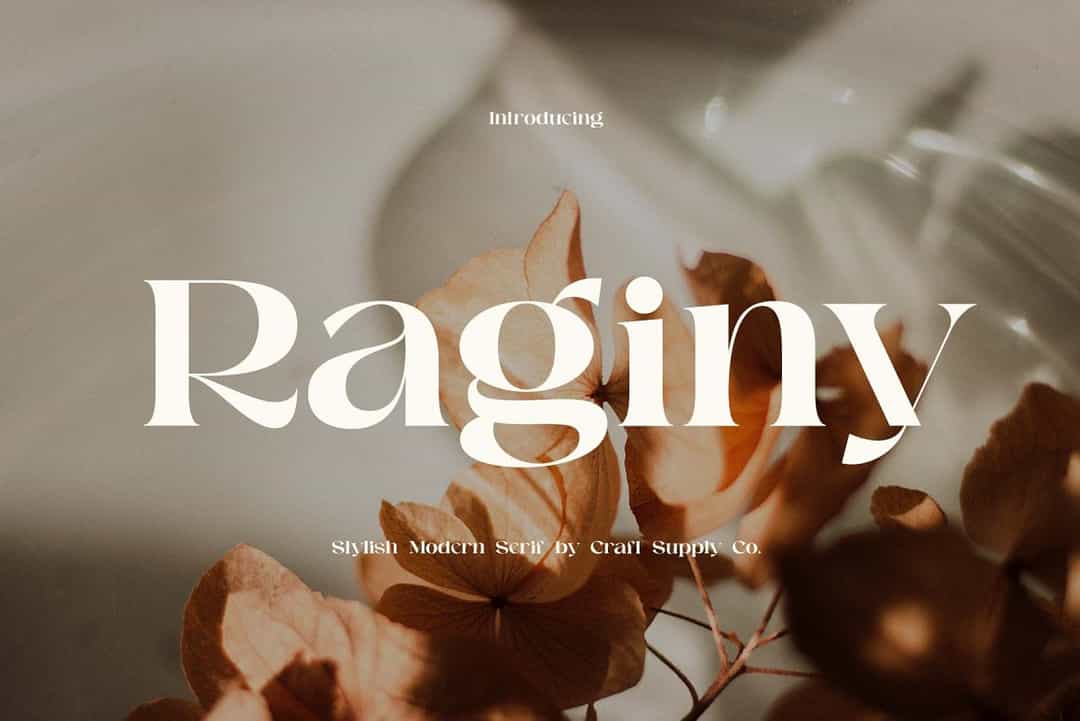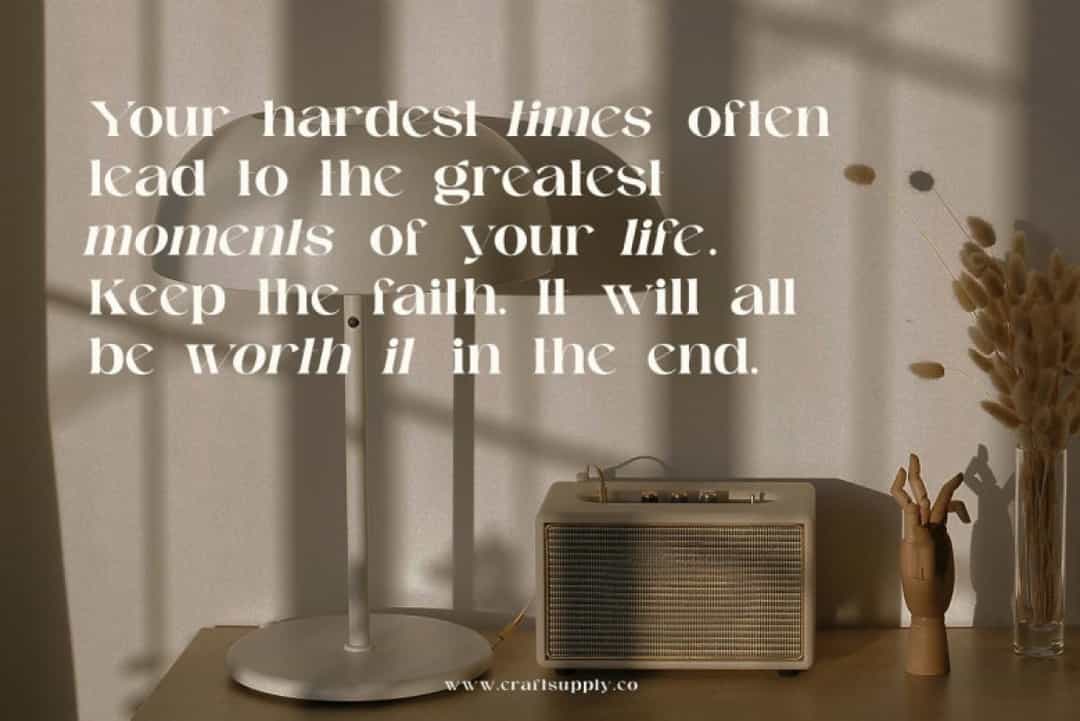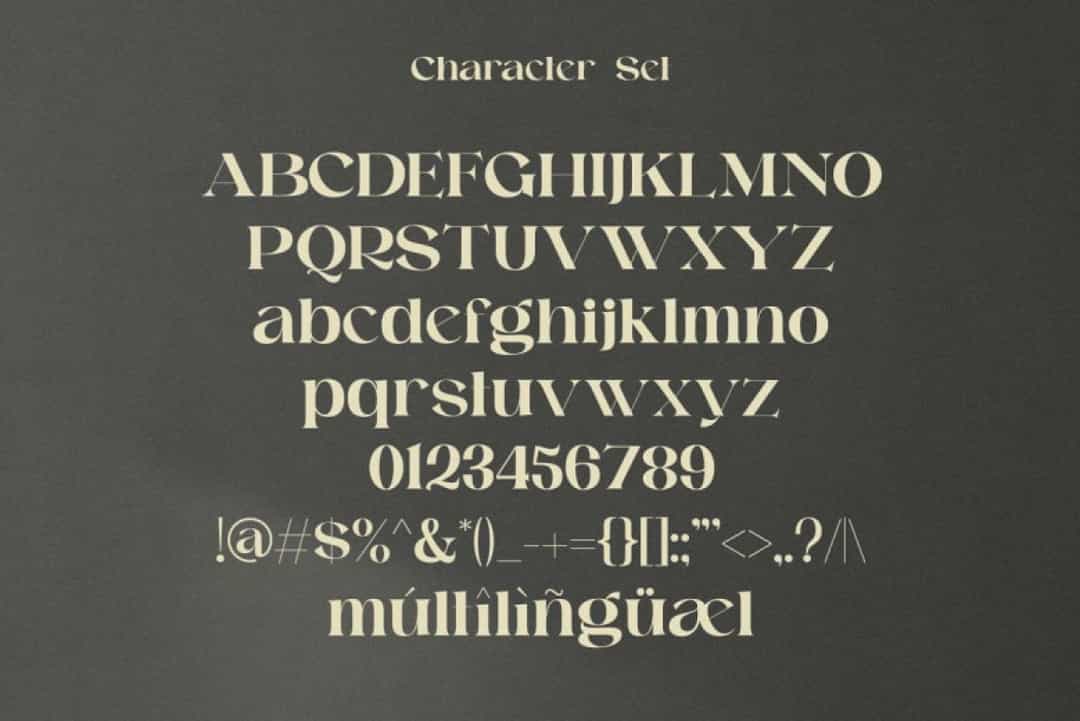
Raginy Font is a contemporary serif font with sharp and high contrast that makes it stand out when used for display or short text applications. Perfect for almost all forms of design work including printing materials; simply think about using Raginy in your designs for something truly spectacular and exciting! Your work will become even more beautiful and exciting when using this typeface!